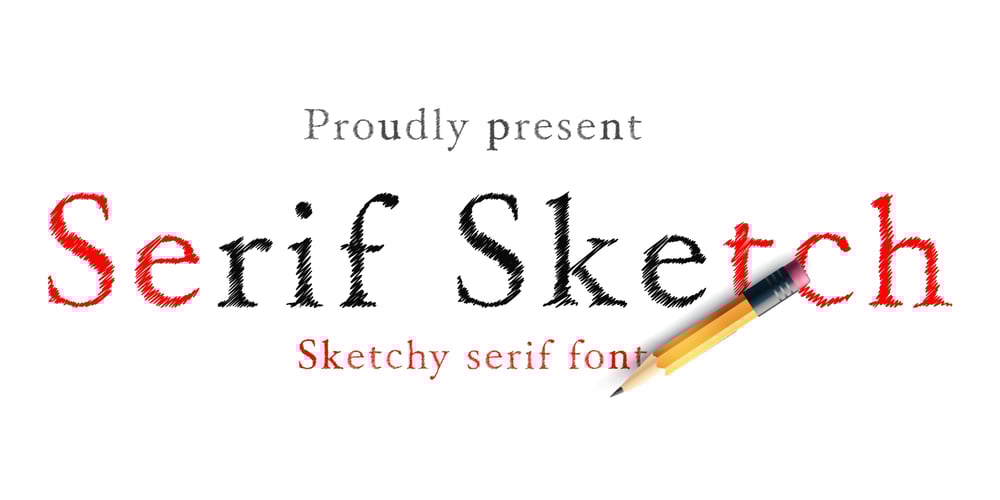
Serif Sketch
Serif Sketch font
Serif Sketch Font Family was designed by Muhammad Ridha Agusni, Siti Saribanon Nurjannah and published by Cititype. Serif Sketch contains 1 styles and family package options. Serif Sketch simplifies elegance into one truly outstanding display font. Whether you’re looking for fonts for Instagram or calligraphy scripts for DIY projects, this font will turn any creative idea into a true piece of art!